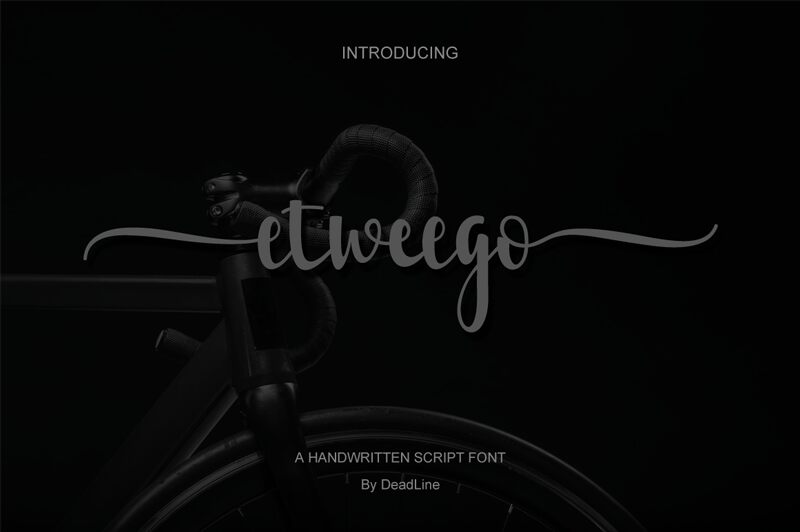
Etweego, the latest creation by Dead Line, is a semi-light handwritten font that adds a touch of personality to any project. With its semi-condensed width, it's perfect for designs that require a stylish and compact look. Whether you're creating invitations, business cards, or social media graphics, Etweego will make your text stand out. The handwritten style gives it a personal touch that's ideal for brands looking to connect with their audience on a deeper level. Use this versatile font for anything from fashion blogs to coffee shop menus and watch your content come to life.